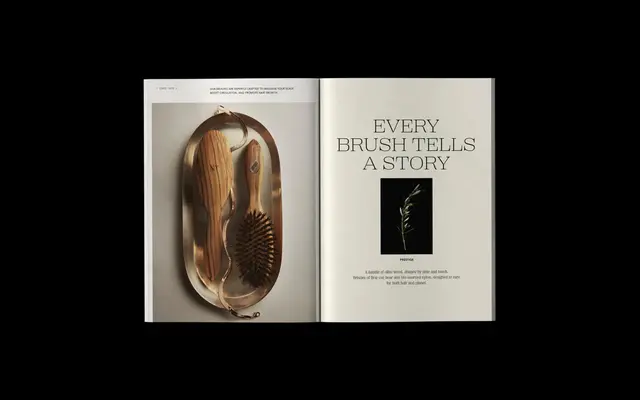
Right Serif
Pangram Foundry · Alex Slobzheninov · 2022
A grotesk-derived serif with large x-height and unusual anatomy, spanning 8 sub-families across 7 weights and 7 widths with variable font support.
Grown directly from Right Gothic by adding serifs, this family inherits grotesk traits — large x-height, moderate contrast and broad width range — that distinguish it from historically rooted serif designs. Eight sub-families cover Tall, Tight, Narrow, Compact, Casual, Wide, Spatial and Italic cuts, each offering 7 styles plus a variable font, totalling 56 static styles. Styles near Regular are usable at text sizes, though the family is primarily suited to display and campaign work.
Originated as a sans-serif (Right Gothic) with serifs grafted on, inheriting large x-height, moderate contrast and grotesk proportions across 7 weights and 7 widths — placing it firmly in the grotesque-influenced serif territory rather than traditional historical models.